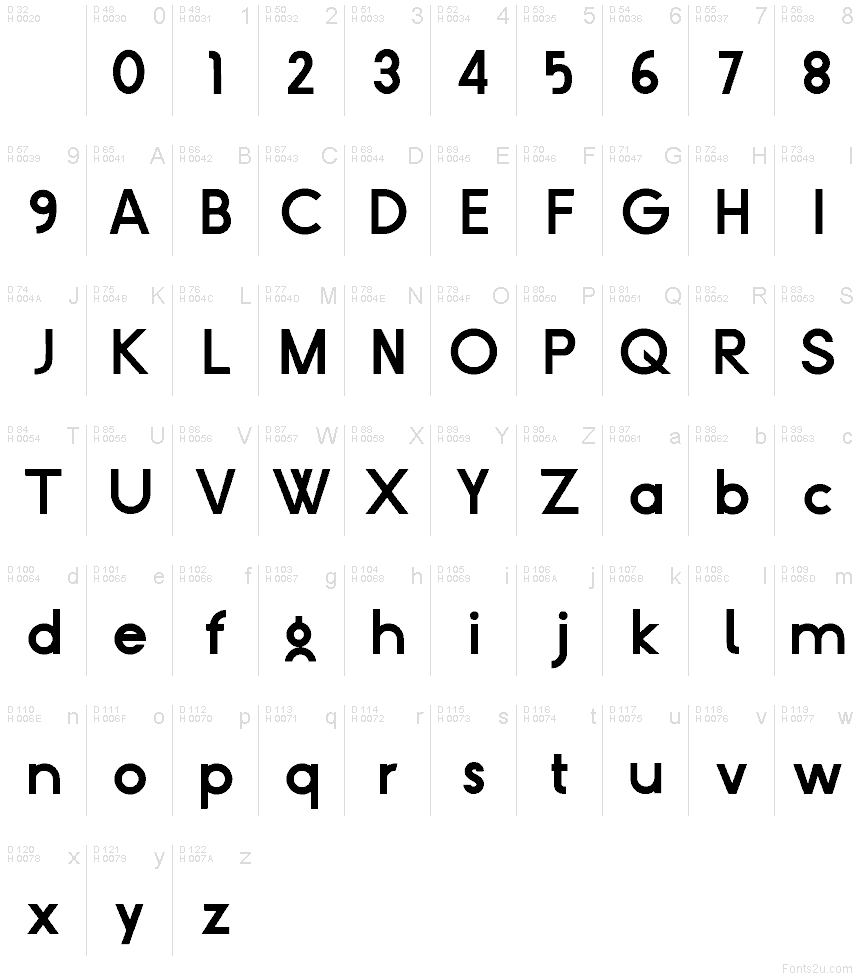
Orbiga Regular
Orbiga font by Tezar Tantular is a round, geometric sans serif that brings together a modern yet minimalistic style. At its core, it gives off a clean corporate feel which when combined with all letters small or big, achieves the ultimate versatile and readable text that would attract and please audiences in different display scenarios.
The light free font is more than suitable for photography captions, marketing posters and presentations (both digital and printed), websites including personal blogs, portfolios, social media platforms as well as any other professional business sites. Make it part of branding designs where it can be used within body texts or headlines.